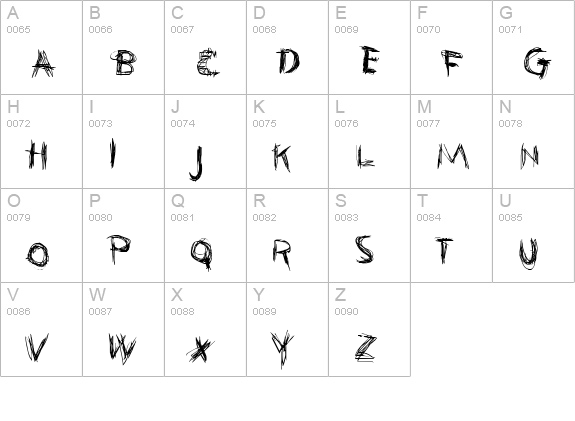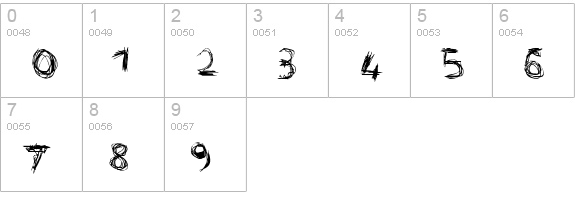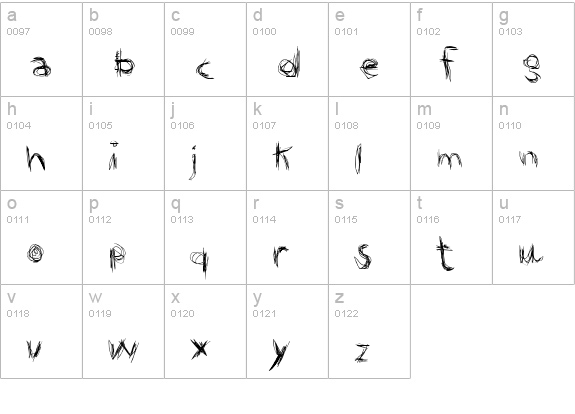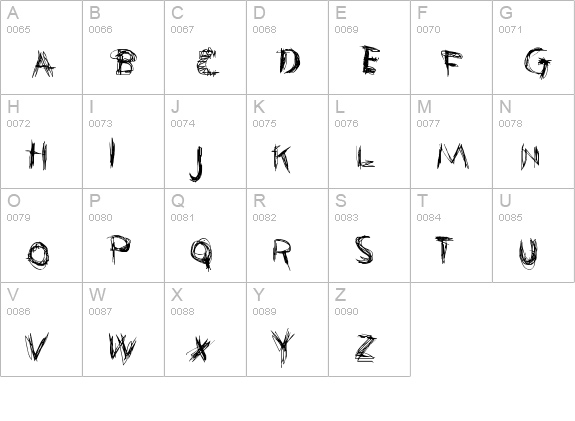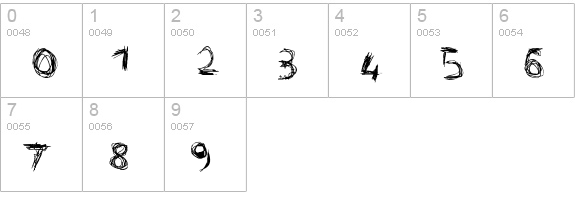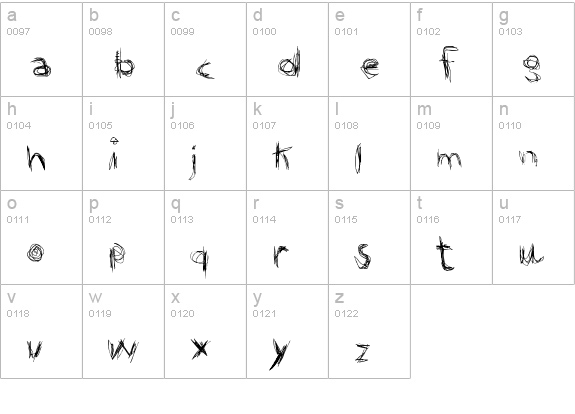
Introducing Graffio-Difensivo, a bold and dynamic font that exudes strength and creativity. Its sharp, edgy lines and unique style make it perfect for projects that require a touch of modern sophistication. The Graffio-Difensivo font is not just a typeface, but a statement - a statement of boldness and individuality. What sets Graffio-Difensivo apart is its versatility. Whether you're designing a poster, logo, or branding materials, this font will make your text stand out and grab attention. Its sleek design and modern flair will add a touch of elegance to any project. And the best part? Graffio-Difensivo is available for free download at FontsMarket.com. Yes, you read that right - this amazing font can be yours at no cost. So why wait? Download Graffio-Difensivo today and take your designs to the next level!